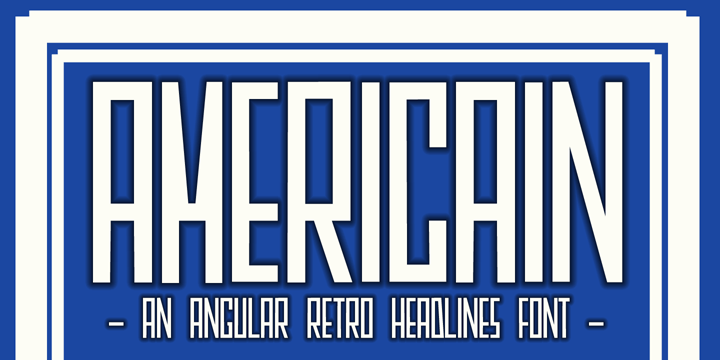
Americain
Americain is a retro-style font, which was based on a single headline from a thirties advertisement. The letters are all caps, but there's a little difference between 'upper' and 'lower' case. Americain is ideal for headlines and posters.